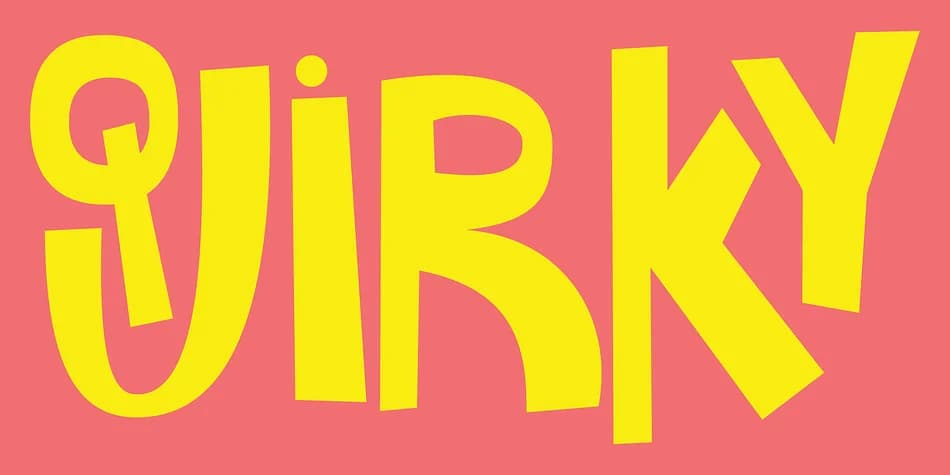
Quirky, designed by Pizzadude.dk, is an all-caps display font with genuine personality baked into every letterform. The shapes carry that deliberately uneven, bouncy quality you see in comic strips and animated editorial design, where each character sits slightly off-center and refuses to align perfectly, keeping the reader engaged and the whole piece feeling lively.
The real strength lies in the extensive ligature system. With over 250 built-in combinations, the font automatically swaps in variations as you type, creating text that feels wonderfully unpredictable and randomized without any manual intervention required. No need to hunt for alternate glyphs or spend hours adjusting individual letters by hand. The ligatures do the heavy lifting, weaving visual surprise and interest through every message while you stay focused on your content.
This font excels in specific applications: children's book covers and illustrations, greeting card suites, DIY craft posters, game interface design, and playful product packaging for toys and novelty items. Comic artists and professional letterers find it particularly useful for visual storytelling and character-driven design work. In any project where lighthearted energy and visual bounce matter more than formal polish, this delivers exactly what you need. Find it on Creative Fabrica.
Quirky Font is a decorative font that shines as a display or heading face. Pair it with a clean sans-serif or serif font for body text β the contrast creates a clear hierarchy while the two styles stay balanced and easy to read.